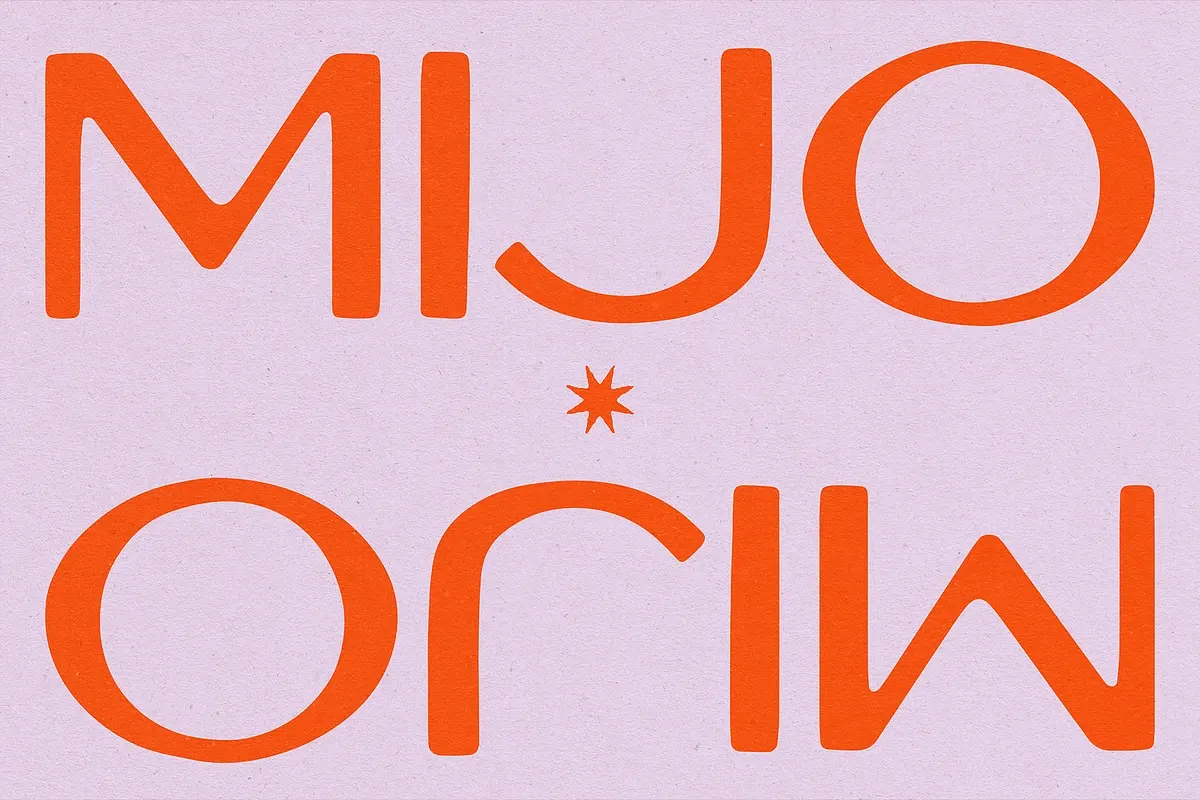
Mijo Typeface Free Download
Mijo Typeface Free Download is a clean and modern font designed to bring a fresh, professional look to your creative projects. With its sleek lines and balanced letterforms, Mijo is perfect for logos, websites, branding, posters, and more. Its versatility makes it ideal for both digital and print designs, providing a contemporary aesthetic with excellent readability.